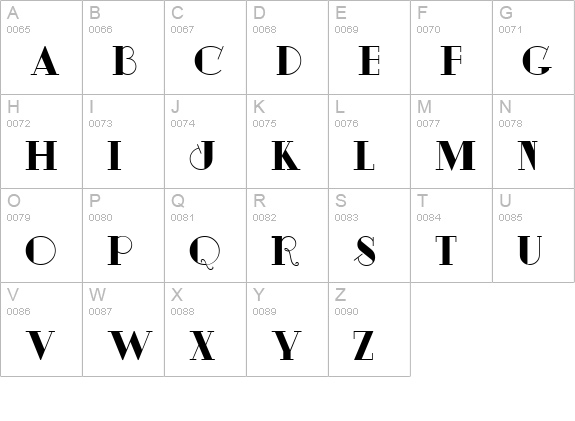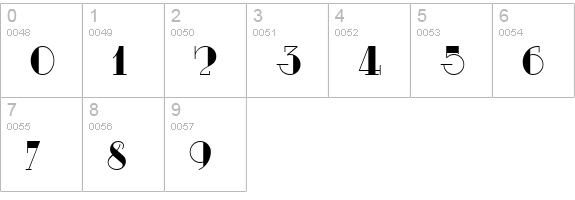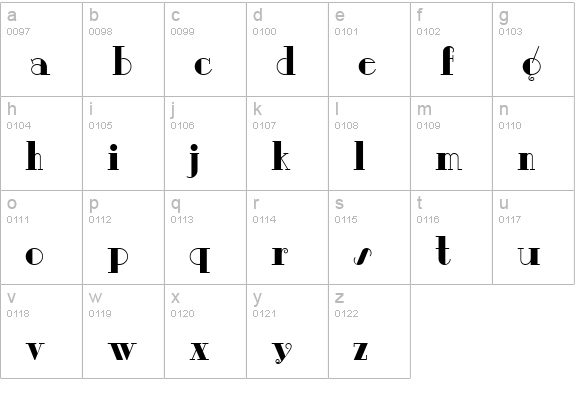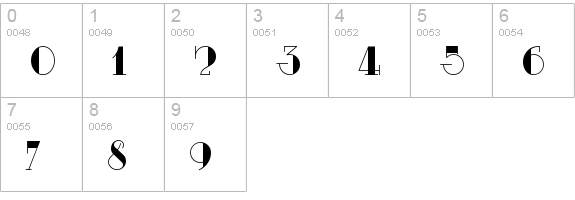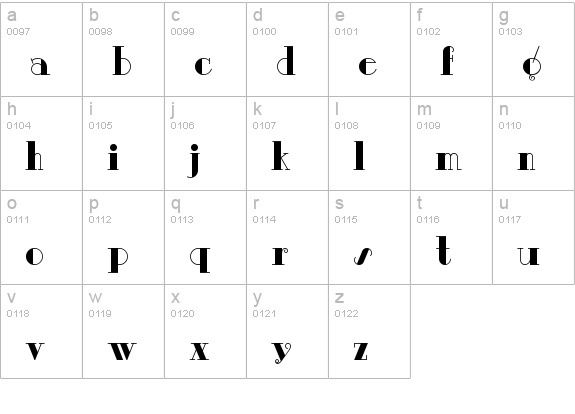
DayTripperNF Font Details
DayTripperNF is a charming and playful font that exudes a sense of adventure and whimsy. With its quirky and unique design, this font is perfect for adding a touch of creativity to any project. Its rounded edges and flowing lines give it a friendly and approachable feel, making it ideal for a wide range of design applications. What makes DayTripperNF even more appealing is that it is available for free download at FontsMarket.com. This means that you can easily incorporate this delightful font into your designs without any cost, making it a budget-friendly option for both personal and commercial projects. Whether you're working on a poster, greeting card, logo, or any other creative project, DayTripperNF is sure to bring a sense of fun and style to your design. Download it for free today and let your imagination run wild with this charming and versatile font.